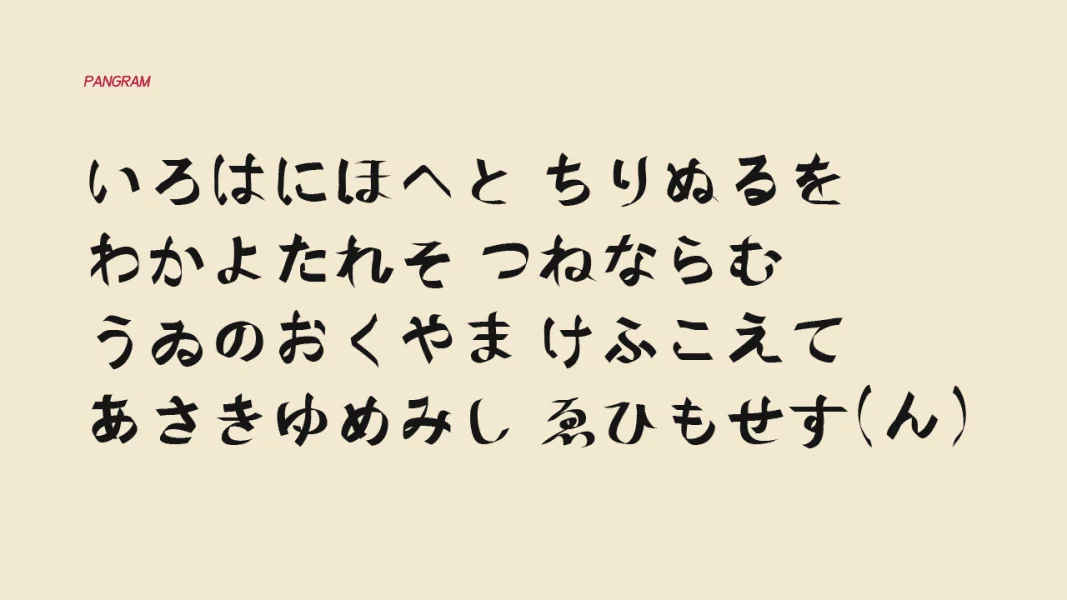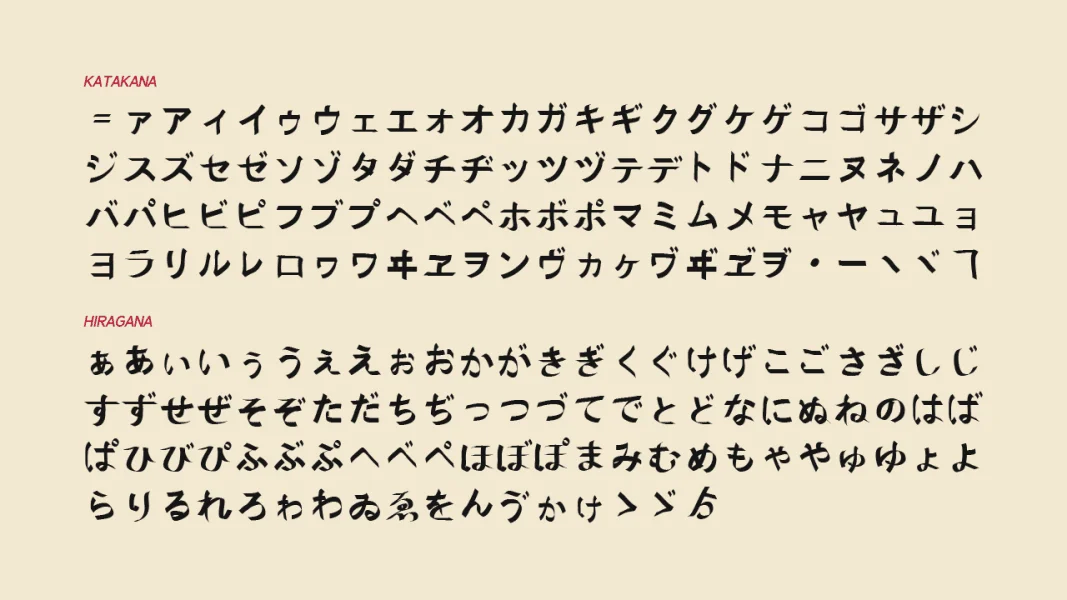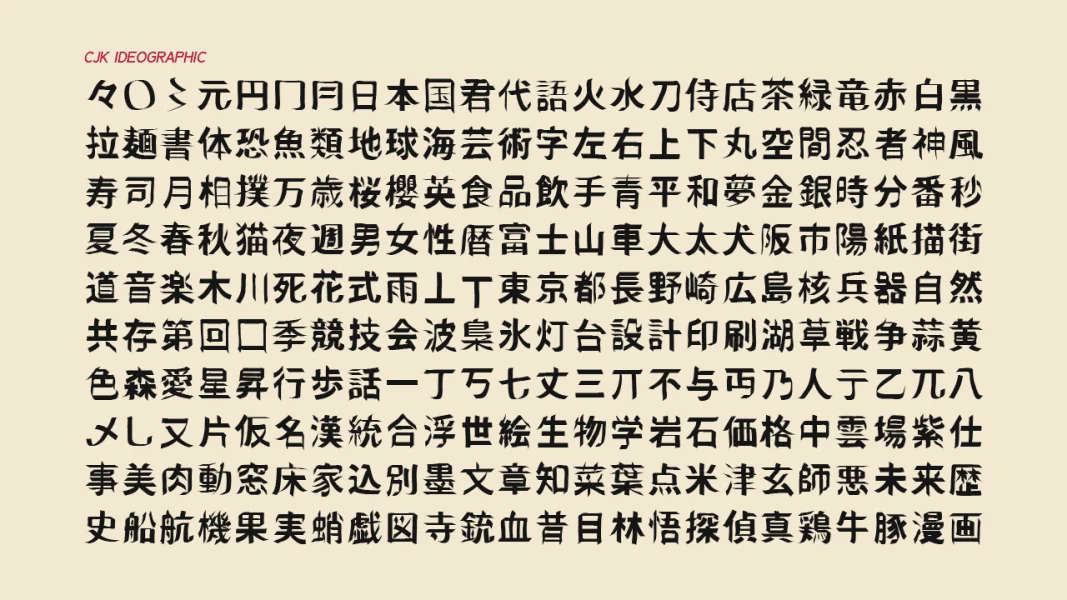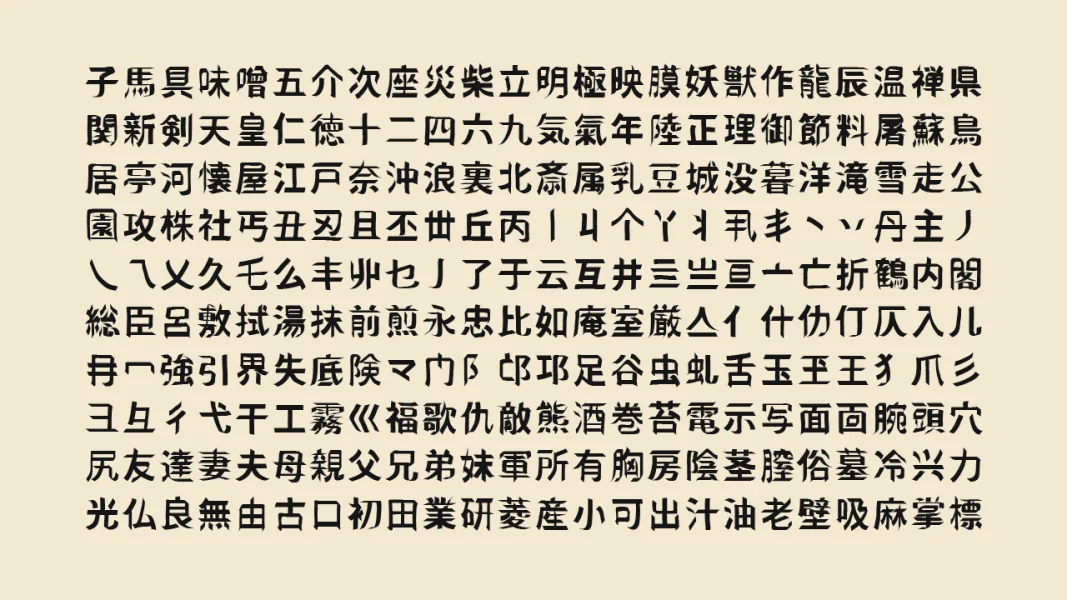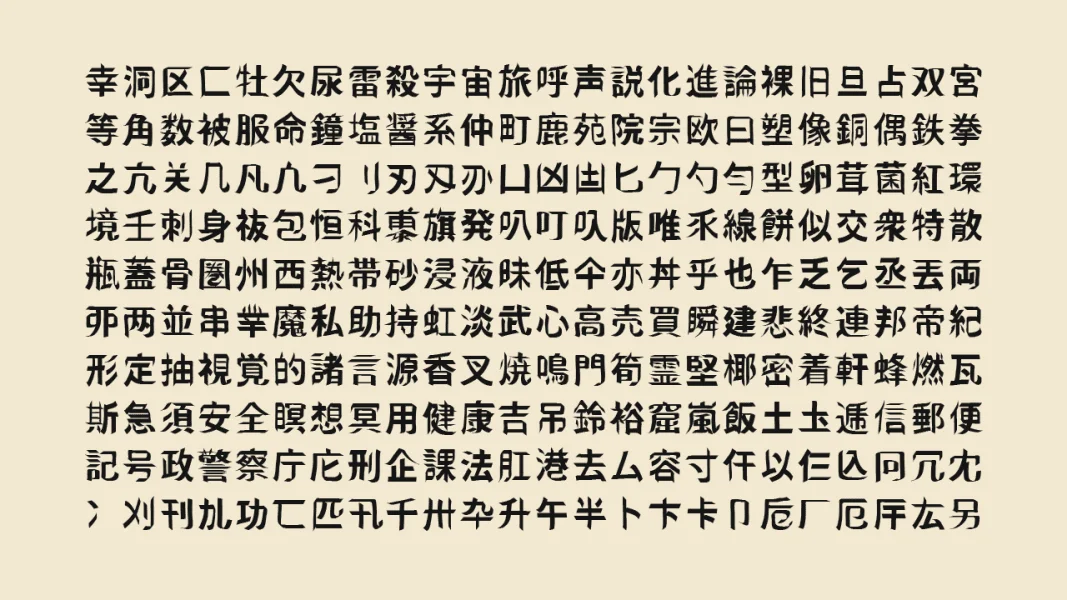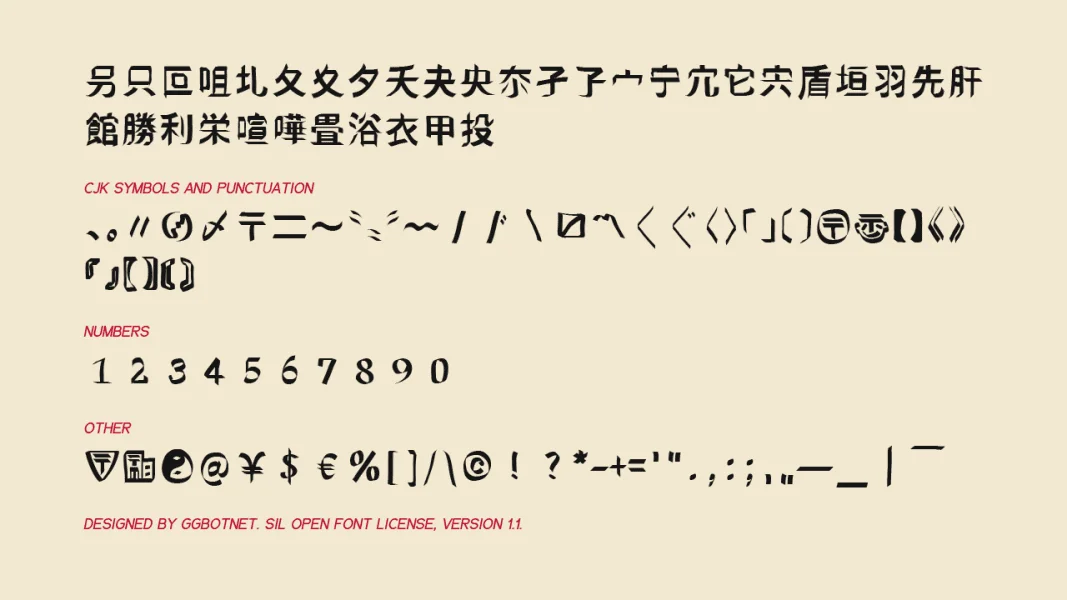
Naganoshi is a brush-style display typeface with a bold, hand-drawn energy. Its strokes feel swift and calligraphic, with rough edges, sharp turns, and expressive variation that gives the characters a lively, organic rhythm.
The design supports Japanese kana, CJK ideographs, numbers, and punctuation, making it useful for posters, packaging, headlines, game titles, cultural event graphics, and branding that needs a forceful handwritten voice.